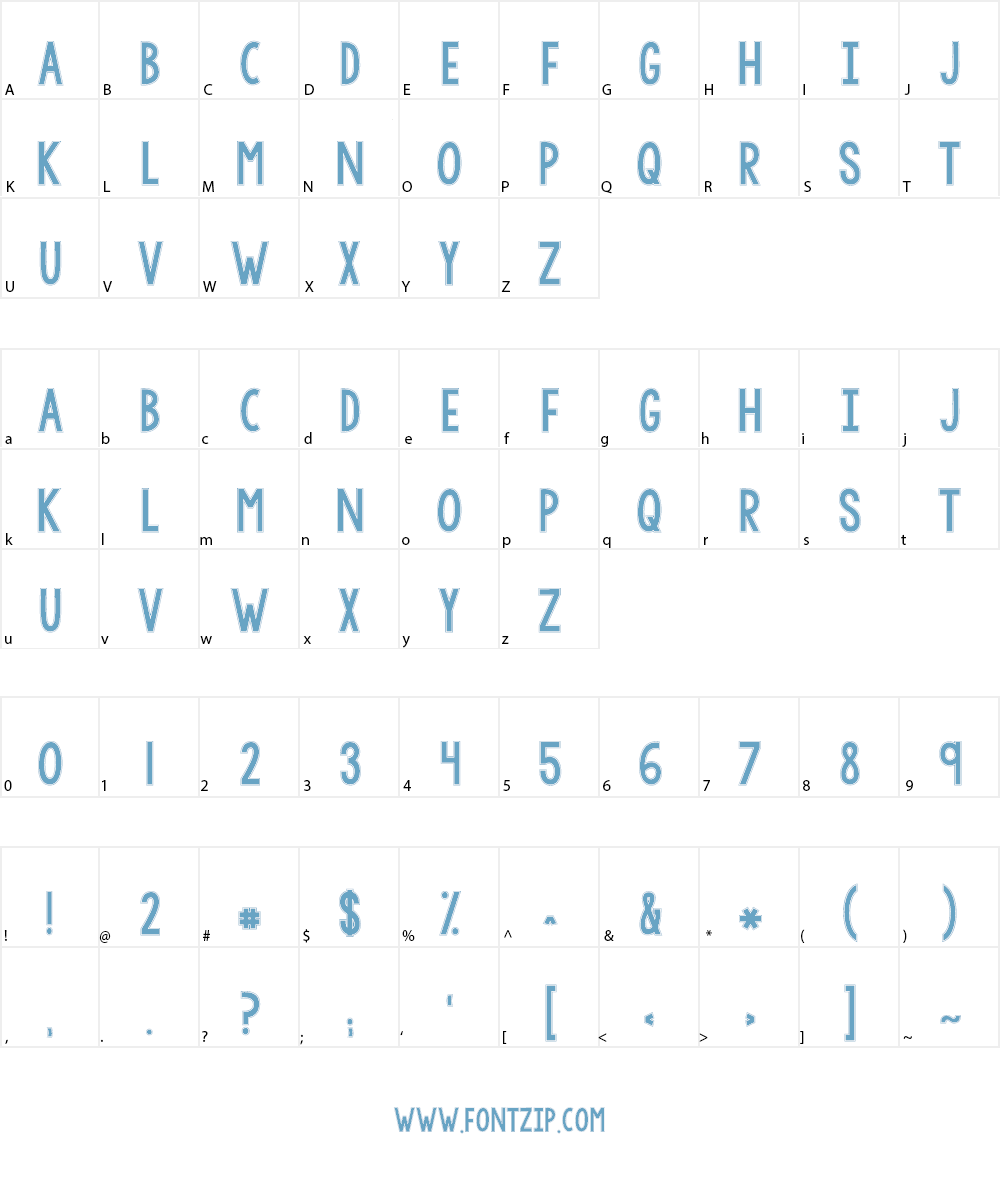
Free for personal use. Please pay for commercial use. Use all caps for an even line of lettering. Use alternating caps and lowercase like tHiS to make bouncy line lettering.